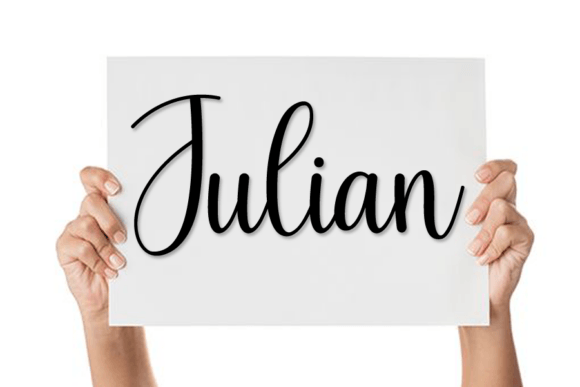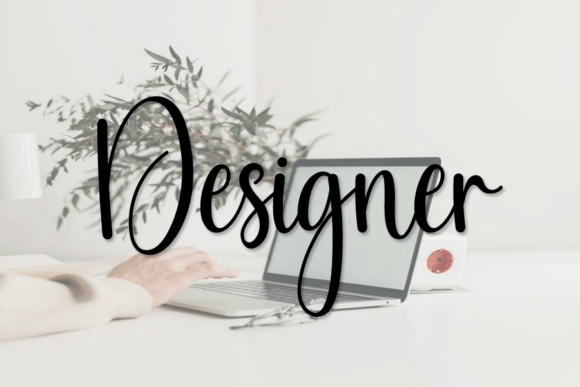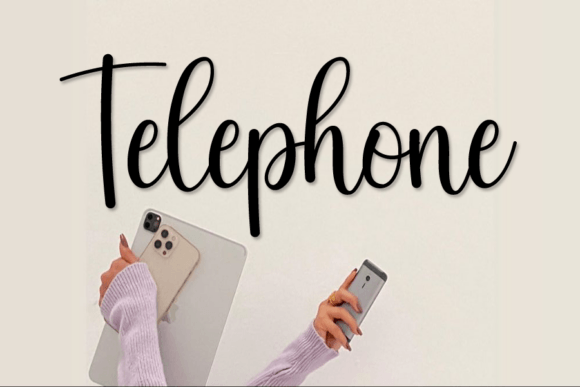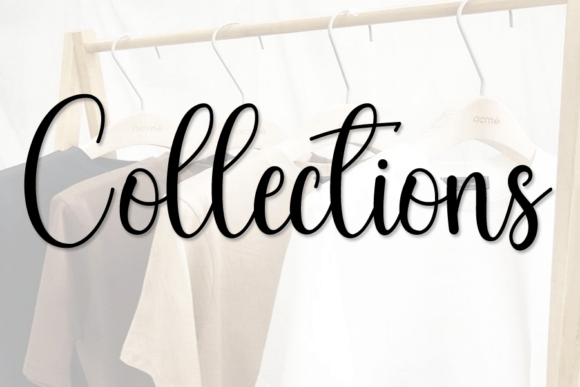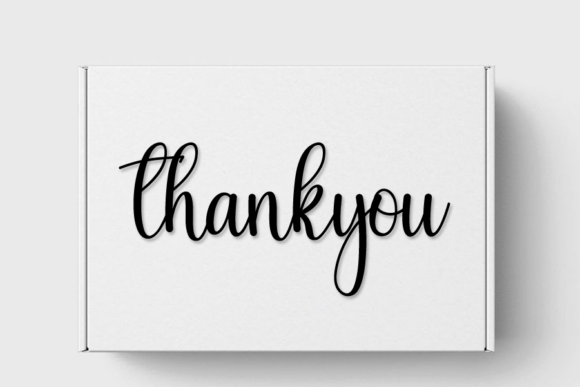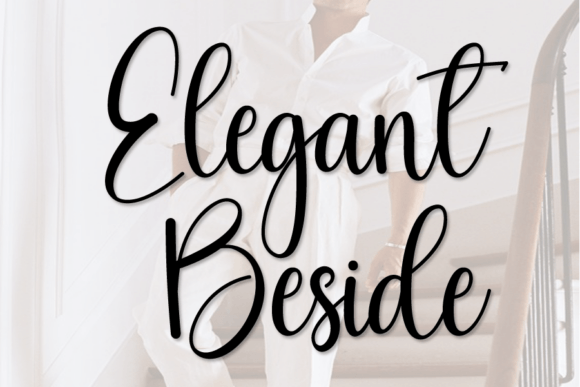
Elegant Beside Font: Elevate Your Designs with a Touch of Classic Simplicity
In the world of typography, few fonts manage to strike a balance between elegance and simplicity. Elegant Beside Font is one such gem that has captured the hearts of designers and crafters alike. This classic and simple handwritten script is a versatile typeface that can add a touch of sophistication to any design project.
The Birth of Elegant Beside Font
Elegant Beside Font was created with a random and free style, giving it a unique and organic feel. The font’s design is characterized by its flowing lines, subtle curves, and classic letterforms. This handmade approach makes Elegant Beside Font stand out from more traditional typefaces, offering a refreshing alternative for designers looking to add a personal touch to their work.
One of the key benefits of Elegant Beside Font is its incredible versatility. This font is suitable for a wide range of design projects, including:
- Logotype and branding: Create a lasting impression with a custom logotype that exudes elegance and sophistication.
- Headline font: Use Elegant Beside Font to craft attention-grabbing headlines that add a touch of class to any publication or advertisement.
- Corporate identity: Establish a professional image with a custom typeface that reflects your company’s values and personality.
- Brand identity: Develop a consistent visual identity across all your marketing channels with Elegant Beside Font.
- Apparel industry: Add a touch of style to your clothing and accessories with a custom typeface that’s both elegant and eye-catching.
- Poster, music, movie, game, magazine, book, comic, and cartoon: Bring your creative projects to life with a font that’s both versatile and visually appealing.
- YouTube, Instagram, and website: Enhance your online presence with a custom typeface that reflects your unique style and personality.
Why Choose Elegant Beside Font?
So, what sets Elegant Beside Font apart from other typefaces? Here are just a few reasons why designers and crafters love this font:
- Unique and distinctive: Elegant Beside Font offers a refreshing alternative to more traditional typefaces, allowing you to stand out from the crowd.
- Easy to read: Despite its elegant and cursive nature, Elegant Beside Font remains highly legible, making it perfect for body text and headlines.
- Highly versatile: Use Elegant Beside Font across a wide range of design projects, from print materials to digital platforms.
- Handcrafted with love: Each letterform has been carefully crafted to ensure a personal and unique feel.
Tips for Using Elegant Beside Font
To get the most out of Elegant Beside Font, here are a few tips to keep in mind:
- Pair with contrasting fonts: Combine Elegant Beside Font with a contrasting typeface to create visual interest and hierarchy.
- Experiment with colors: Try pairing Elegant Beside Font with a range of colors to add depth and personality to your design.
- Pay attention to spacing: Make sure to adjust the spacing between letters and words to ensure optimal legibility.
Elegant Beside Font is a timeless and elegant typeface that’s perfect for designers and crafters looking to add a touch of sophistication to their work. With its unique and distinctive style, high legibility, and versatility, this font is sure to become a staple in your design toolkit. Whether you’re working on a logotype, headline font, or creative project, Elegant Beside Font is the perfect choice for anyone looking to elevate their designs.